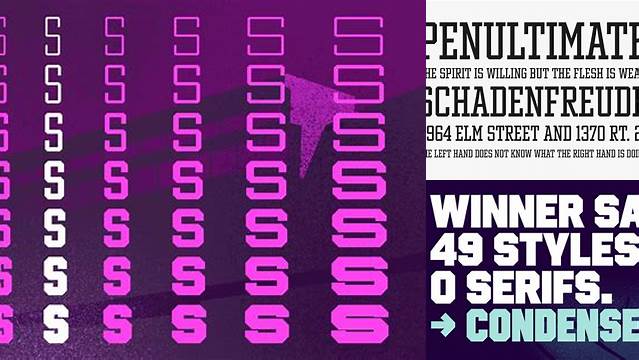
Are you on the hunt for a sleek, modern font that can instantly elevate your designs? Look no further than Winner Sans Condensed. This versatile typeface has quickly become a favorite among designers, thanks to its clean lines, excellent readability, and a wide range of applications. And the best part? You can get a Winner Sans Condensed font free download! This comprehensive guide will walk you through everything you need to know about this fantastic font, from its features and uses to how to snag your very own free copy. So, let's dive in and discover why Winner Sans Condensed is a winner!
Why Choose Winner Sans Condensed Font?
Let's be honest, guys, the right font can make or break a design. It's like the secret ingredient that ties everything together. Winner Sans Condensed isn't just any font; it's a carefully crafted typeface that brings a touch of sophistication and modernity to any project. Its condensed nature means it's perfect for headlines, titles, and anywhere you need to fit more text in a limited space without sacrificing readability. What really sets this font apart? First and foremost, Winner Sans Condensed boasts a remarkably clean and uncluttered aesthetic. The design is characterized by its geometric shapes and a balanced weight distribution, making it a pleasure to read both on screen and in print. This font is designed to be versatile, allowing you to use it across different types of projects, from website design to branding and marketing materials. Secondly, it offers a wide range of weights and styles. The complete family usually includes various weights such as light, regular, bold, and extra bold, each of them having its own condensed version. This gives designers a great deal of flexibility. You can select the perfect weight to match the tone and style of your project. Are you looking for a subtle, understated look? Go for the light or regular weight. Do you need a bolder, more eye-catching headline? The bold or extra bold weights are your go-to options. Thirdly, it’s incredibly versatile. This font works great in a variety of design contexts. You could use it for everything, from website headers and blog titles to social media graphics, posters, and even corporate presentations. The condensed style is especially useful for layouts where space is at a premium. Imagine trying to fit a long headline into a small space – Winner Sans Condensed makes it easy, and keeps the text readable! It's the kind of font that just works, no matter what you throw at it. Its modern, clean aesthetic blends well with contemporary designs and can be paired with many different fonts to create a perfect design. So, whether you’re a seasoned designer or a beginner, Winner Sans Condensed is a must-have in your font library. You'll be amazed at how it can transform your projects.
Features of Winner Sans Condensed
Let's delve deeper into the amazing features that make Winner Sans Condensed a top choice. This font isn't just about looks; it's packed with features that enhance its functionality and versatility. Let's break down some of its key characteristics.
- Condensed Design: The most obvious feature is its condensed nature, making it ideal for tight spaces. The characters are narrower than standard fonts, allowing you to fit more text within a given area. This is particularly useful for headlines, subheadings, and any situation where space is limited. It’s all about efficiency, guys! You don't want to leave too much negative space, but you also need to keep your content clear and engaging.
- Clean and Modern Aesthetics: Winner Sans Condensed has a clean, modern appearance. The letters are designed with simple, geometric shapes, providing a contemporary look and feel. This clean design helps to create a professional and polished appearance in your designs, making your text easy to read and visually appealing. The aesthetic is perfect for modern brands and projects that want to communicate a sense of sophistication and style.
- Multiple Weights and Styles: This font typically comes in a variety of weights (such as light, regular, bold, and extra bold) and styles (such as regular and italic), enabling you to add visual interest and hierarchy to your text. The different weights enable you to create visual contrast. This is important in your designs so that your audience knows where to look! With the different styles available, you can emphasize certain words or phrases, making your content pop. This flexibility allows designers to create a wide range of effects, from subtle and understated to bold and impactful.
- Excellent Readability: Despite its condensed design, Winner Sans Condensed maintains excellent readability. The clarity of each character makes it easy on the eyes, even in smaller sizes. This is crucial for both short and long texts, ensuring your message is conveyed clearly. This readability is a massive advantage. You want your audience to easily take in your message, not struggle to read it.
- Versatile Applications: The font's versatility allows it to be used across a wide range of design projects. Whether you’re designing a website, creating marketing materials, or working on a presentation, Winner Sans Condensed adapts well to any environment. Its flexibility means you're not limited in how you can use it, making it a perfect choice for various design needs. No matter the project, Winner Sans Condensed will deliver a fantastic result!